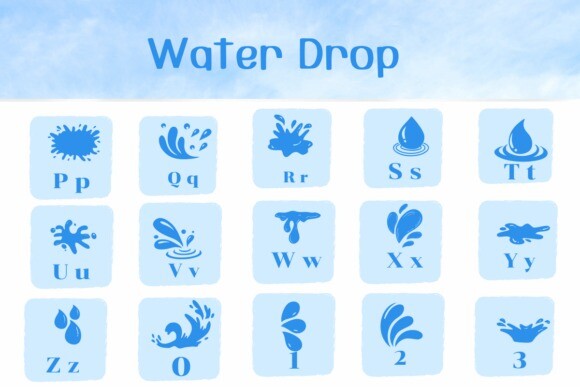
Water Drop Font
Water Drop Font is a dingbats font with a natural style. This font can enhance your creative projects such as wedding invitations, DIY, crafts, decorations, logos, and many other creative ideas.